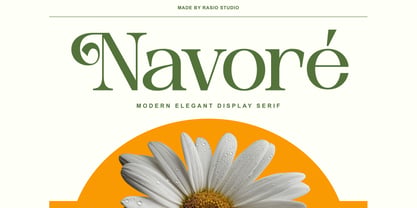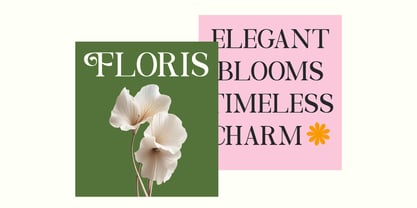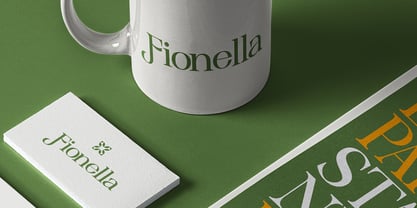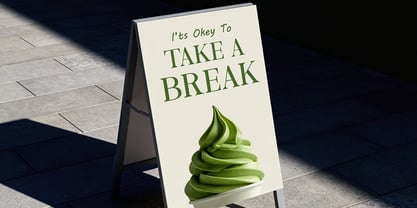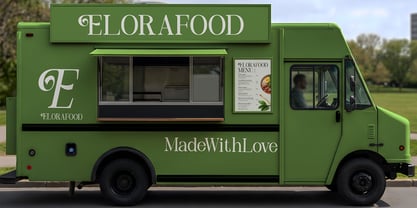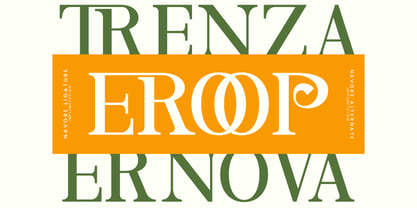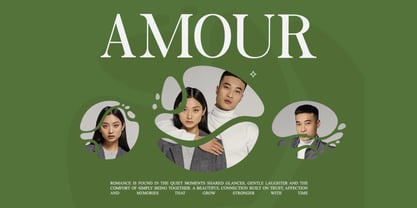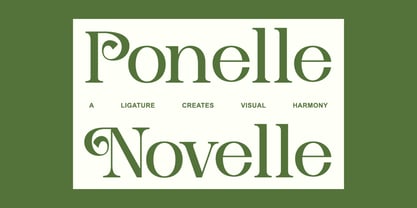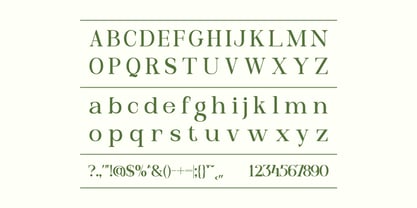
Navore
by Rasio Studio
The Navore Font Family was designed by Fajar Indra and published by Rasio Studio. Navore contains 1 styles. More about this family
Navore is a contemporary display serif typeface inspired by botanical elegance and refined editorial aesthetics. The design combines smooth high-contrast strokes, graceful curves, and distinctive ornamental terminals that create a sophisticated personality while maintaining exceptional readability. Its decorative uppercase forms and balanced lowercase characters give every headline a memorable, premium appearance.
Relevance and Use Case is perfect for creative projects that require decorative elegance with a refined editorial character. Its botanical-inspired details and sophisticated serif construction make it especially suitable for premium branding, luxury packaging, floral businesses, beauty products, fashion campaigns, boutique identities, wedding stationery, magazine covers, and logo design where distinctive typography becomes the visual centerpiece.
Designers: Fajar Indra
Foundry: Rasio Studio